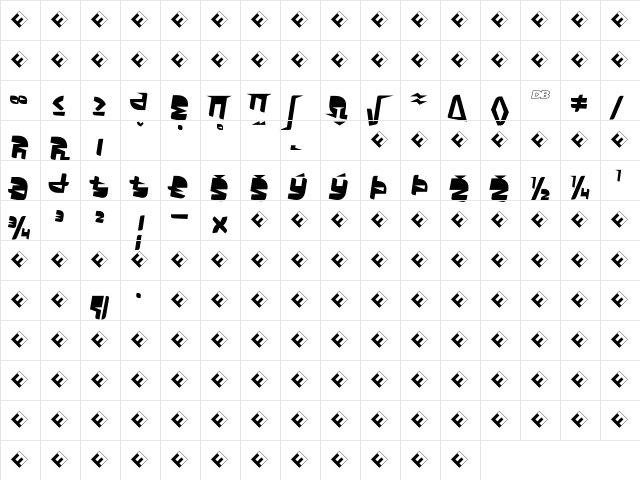
AutomaticRegularExpert Regular
Design Context for AutomaticRegularExpert Typeface
AutomaticRegularExpert is a composed and adaptable typeface that performs quietly and consistently across a wide range of design contexts.